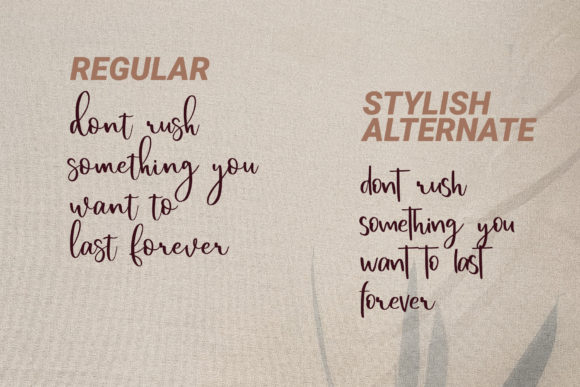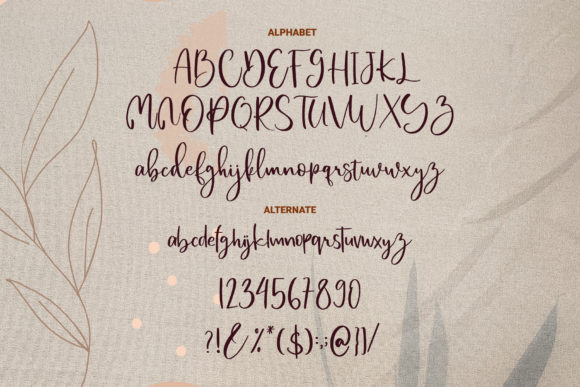
Introduction to Maisha Font Font
Fonts play a crucial role in design, and the Maisha Font font is a typeface that brings both character and versatility to any project. Whether you’re working on a branding project, a website, or a print design, the Maisha Font font offers a unique style that can elevate your work.
Maisha is a stylish modern calligraphy font.
It has cute characters and amazing alternates It can be used for wedding invitations, business card, poster design, t-shirt designs, magazine design, greetings cards, and much more.
Key Features of Maisha Font Font
Why Choose Maisha Font Font?
The Maisha Font font is more than just a typeface – it’s a design tool that helps you communicate your message with style and clarity. Its unique character set and versatile design make it suitable for a wide range of applications, from elegant invitations to bold headlines.
With its carefully crafted letterforms and balanced proportions, the Maisha Font font ensures readability and visual appeal across all mediums.
What makes Maisha Font font special?
The Maisha Font font stands out with its unique design, exceptional readability, and versatility across various design applications.